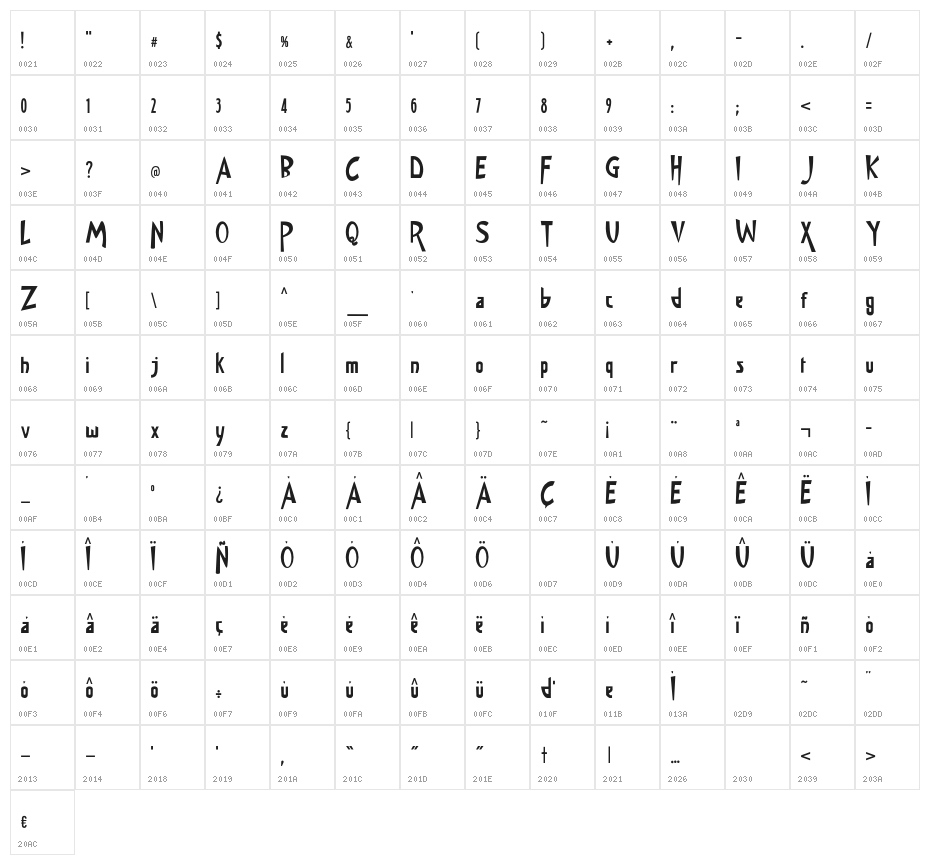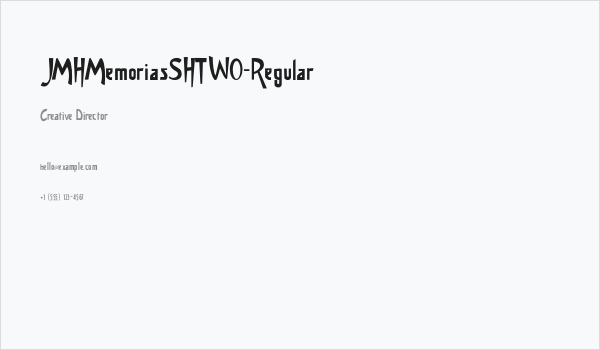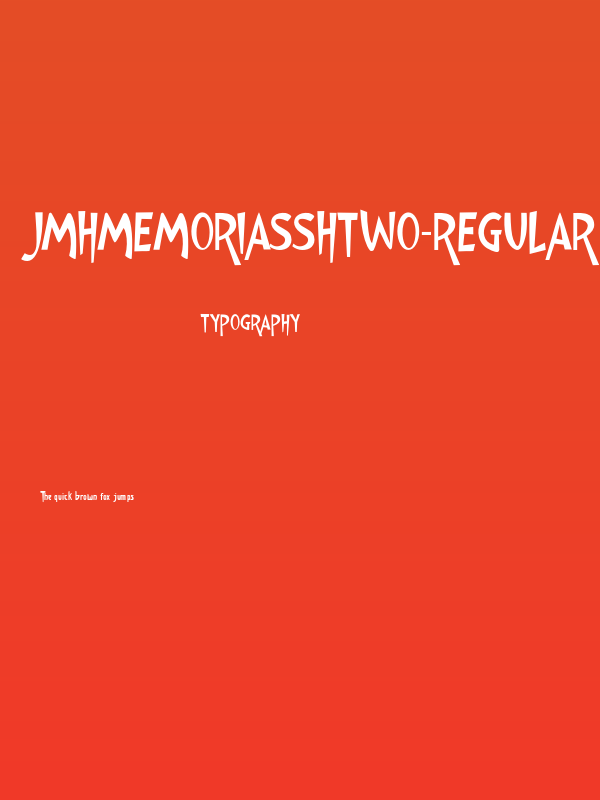
JMHMemoriasSHTWO-Regular Font
JMHMemoriasSHTWO-Regular Description
This font features a unique and playful design with a mix of sharp and rounded edges, giving it a dynamic and whimsical appearance. The uppercase letters are tall and slightly irregular, adding a sense of movement and energy. The lowercase letters maintain a more structured form, providing a nice contrast to the uppercase. The numbers are bold and clear, ensuring readability. Special characters are creatively designed, fitting well with the overall style. This font is perfect for projects that require a fun and engaging look.
| Proposed Projects | Ideal for children's books, playful branding, posters, and creative invitations. |